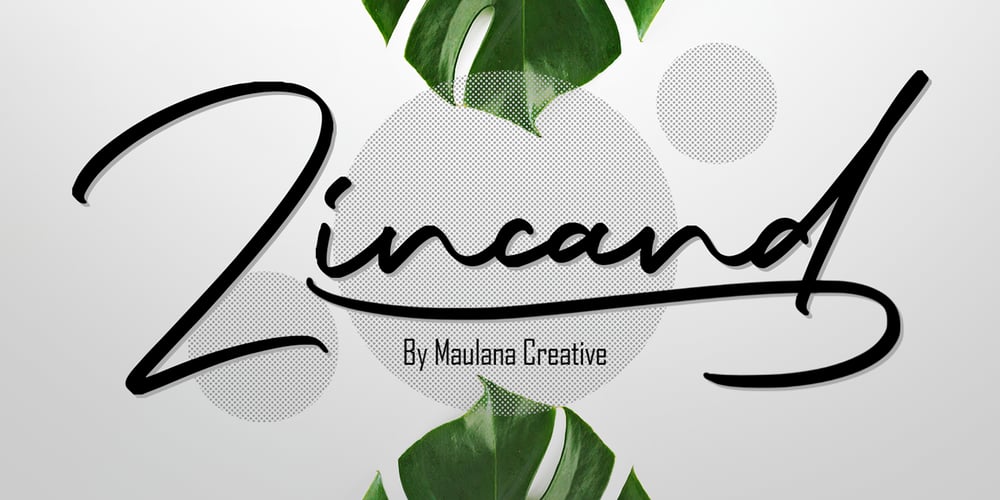
Zincand Font Family was designed by Gilang Maulana and published by Maulana Creative. Zincand contains 1 styles and family package options. Zincand Modern Script FontGive your designs an authentic handcrafted feel. “Zincand Modern Script Font” is perfectly suited to signature, stationery, logo, typography quotes, magazine or book cover, website header, clothing, branding, packaging design and more.